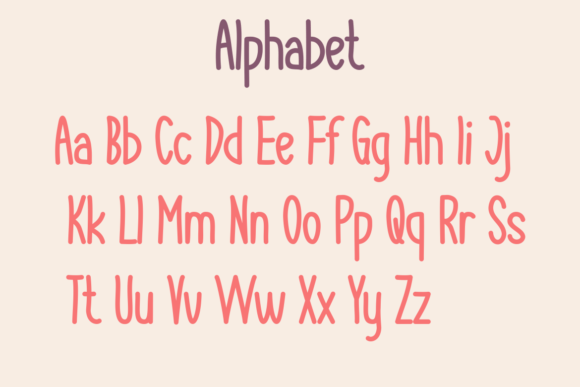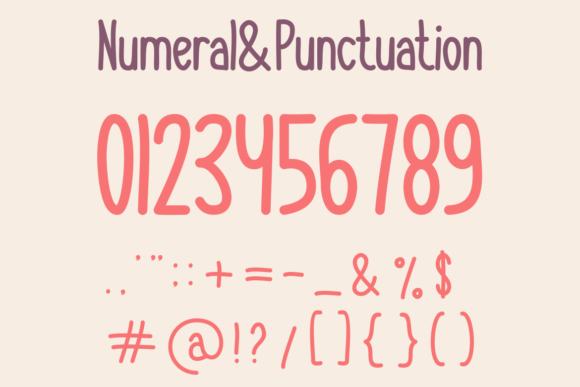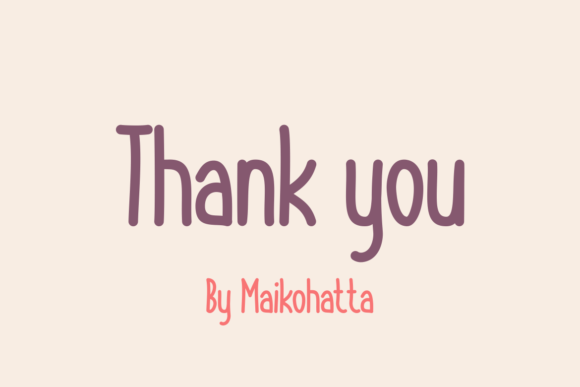
Introduction to Hippow Font
Hippow Font is a bold and authentic handwritten font.
This stunning font is suitable for logos, t-shirt printing, esports, and many more Outstanding in a wide range of contexts.
Key Features of Hippow Font